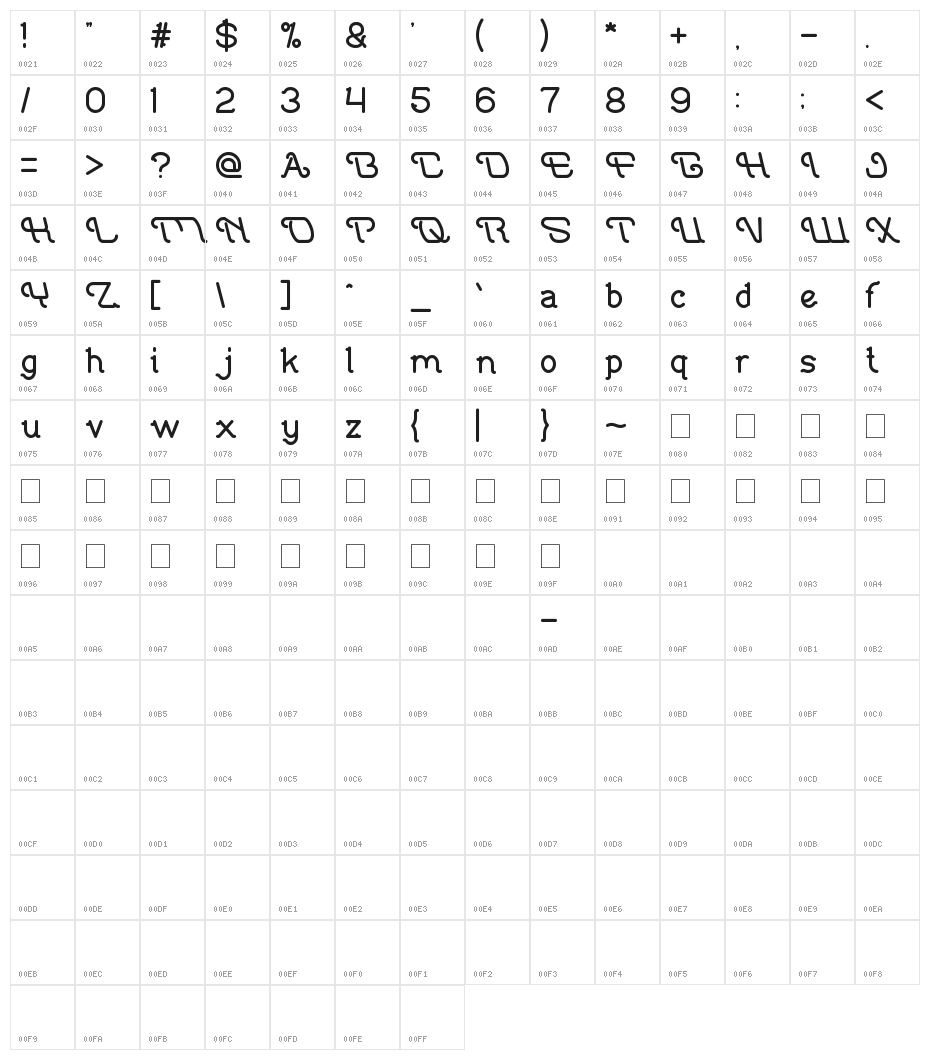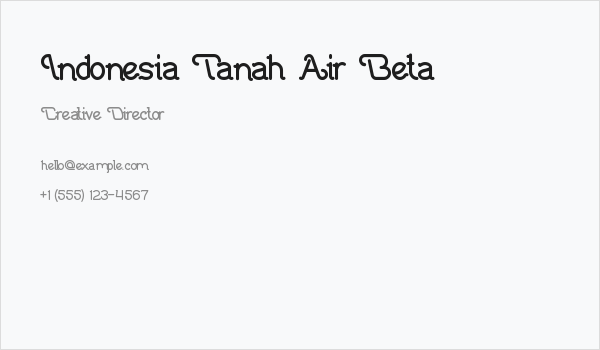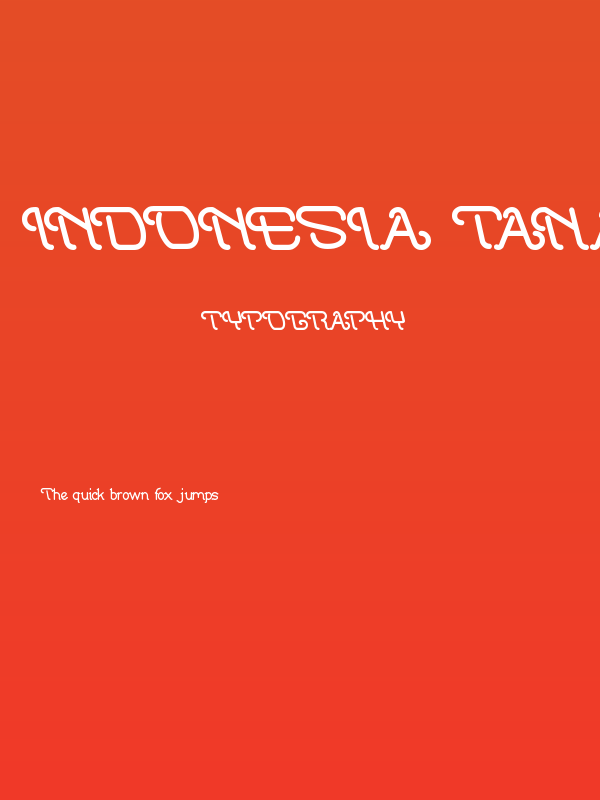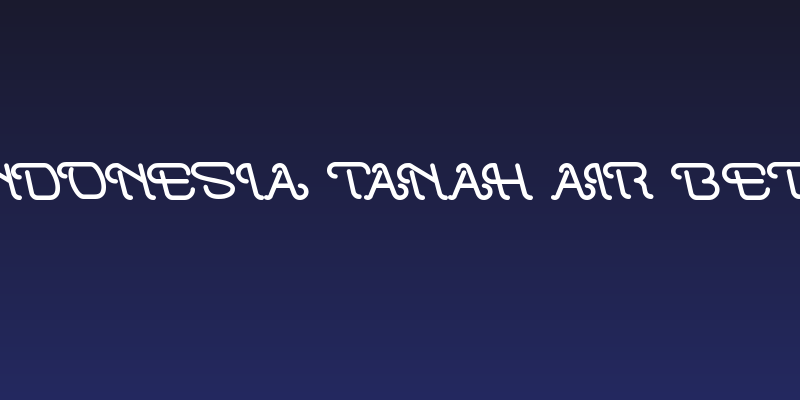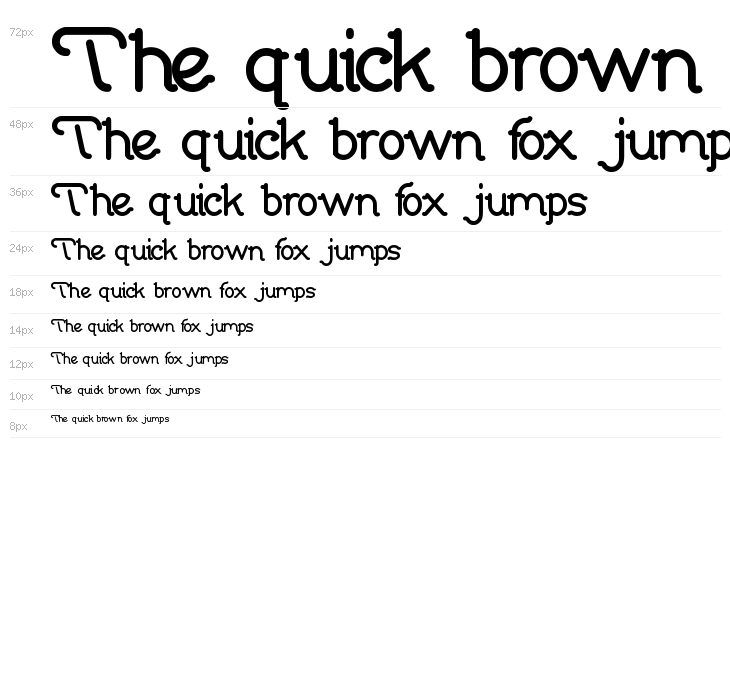
Indonesia Tanah Air Beta Font
Indonesia Tanah Air Beta Description
This font features a playful and rounded style with a unique, slightly retro aesthetic. The uppercase letters have a distinctive looped design, giving them a whimsical and approachable feel. The lowercase letters maintain a consistent rounded form, enhancing readability while retaining a friendly appearance. The numerals are bold and clear, making them suitable for various applications. Special characters are well-integrated, maintaining the overall cohesive look of the font. This typeface is ideal for projects that require a touch of fun and creativity, such as children's books, playful branding, or casual invitations.
| Overall Style | Retro, Playful |
| Proposed Projects | Children's books, playful branding, casual invitations, creative posters. |